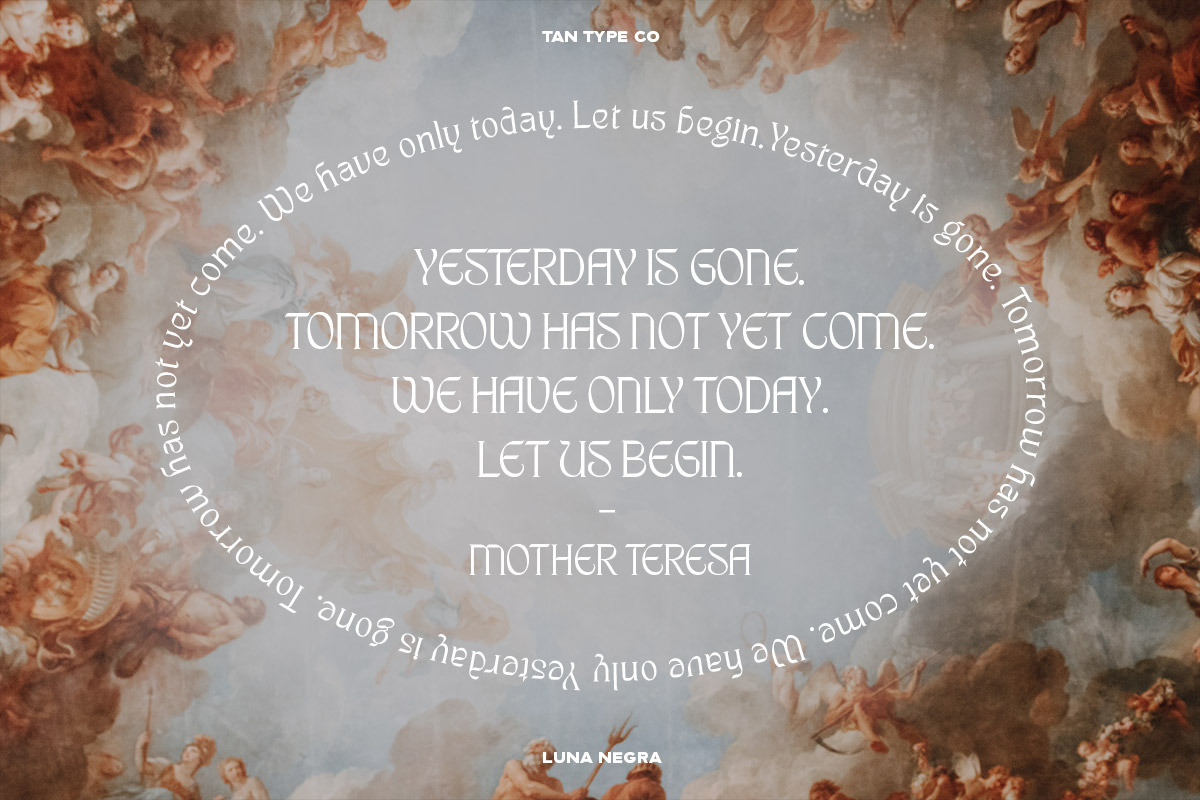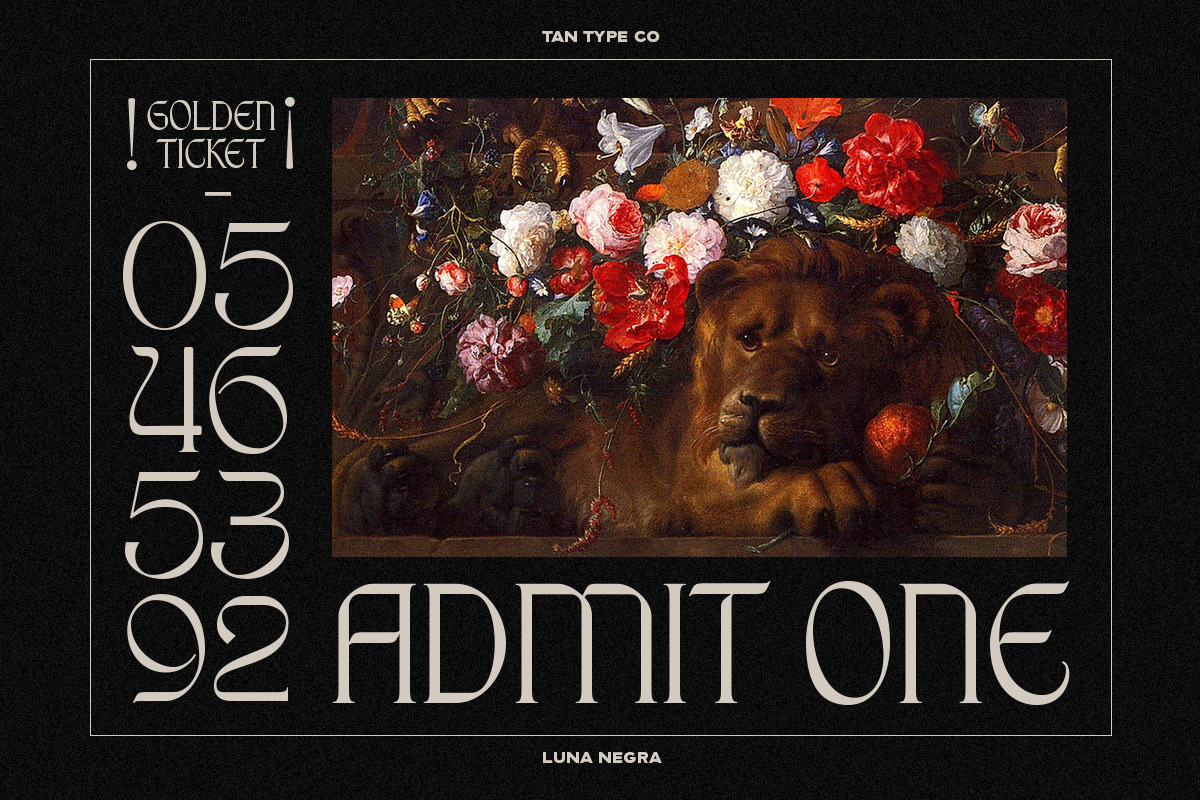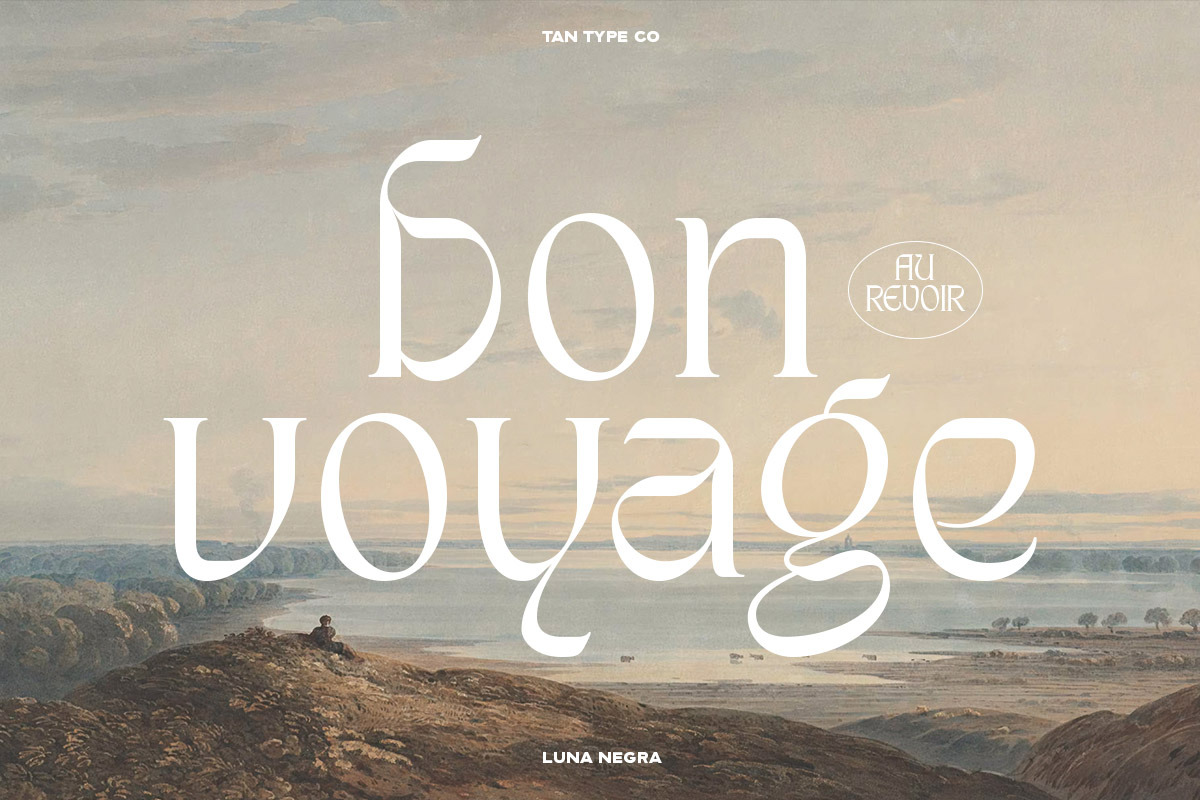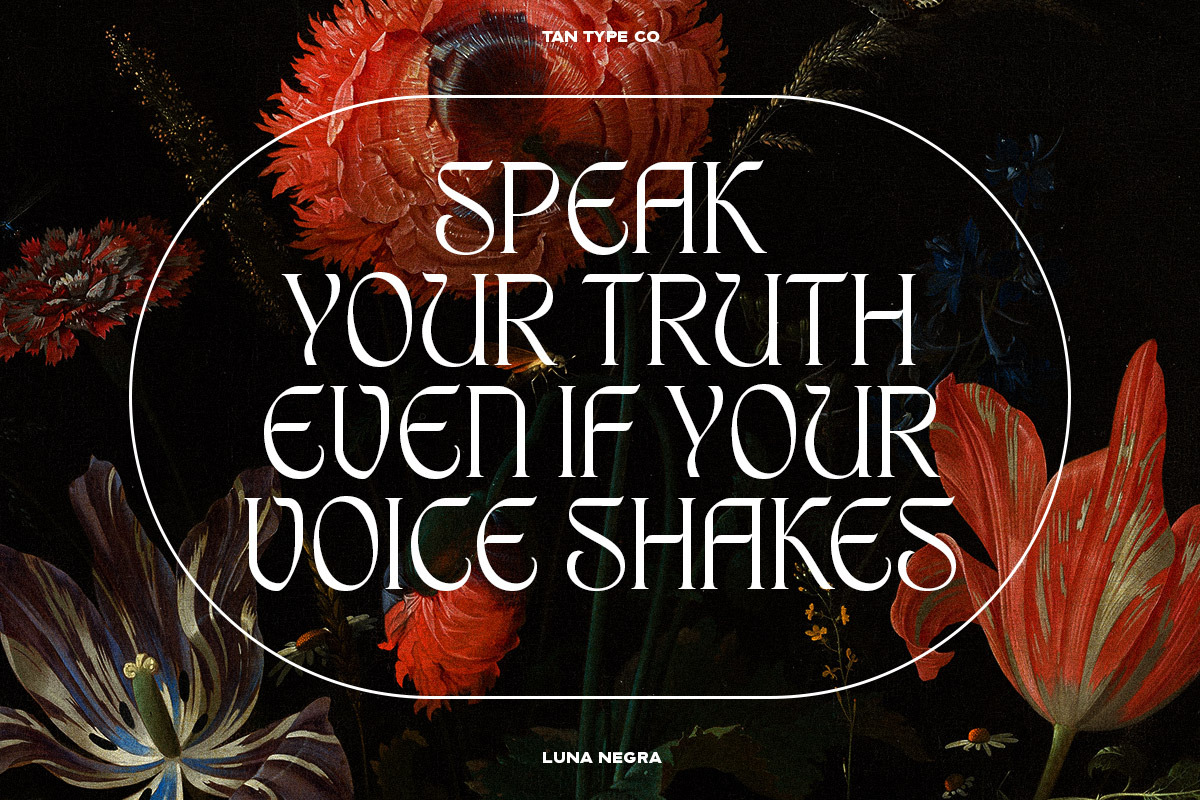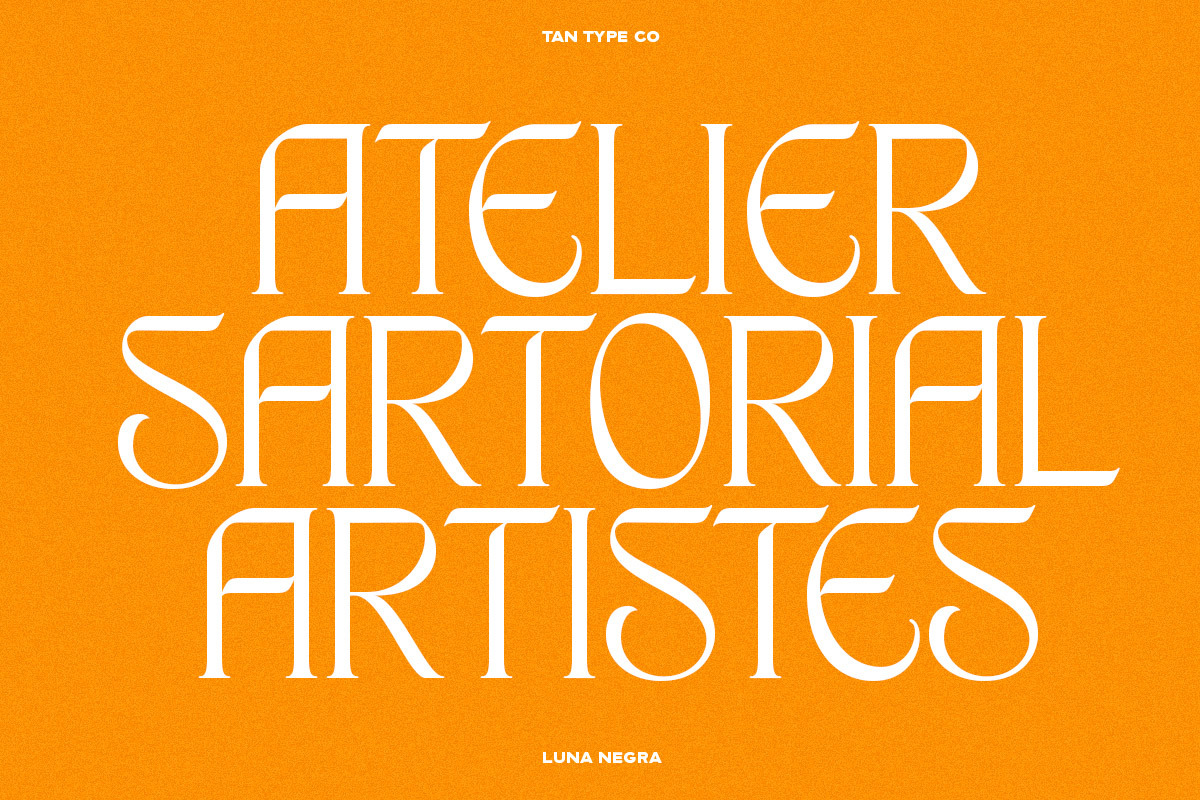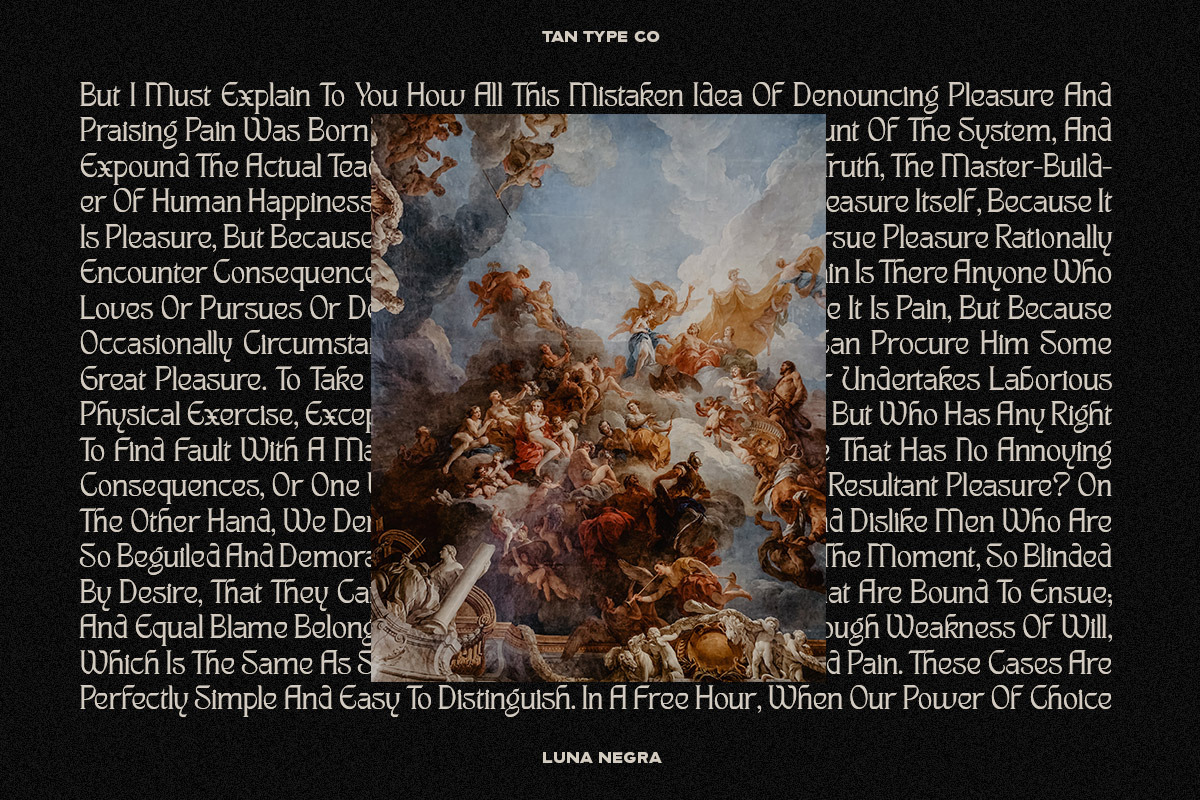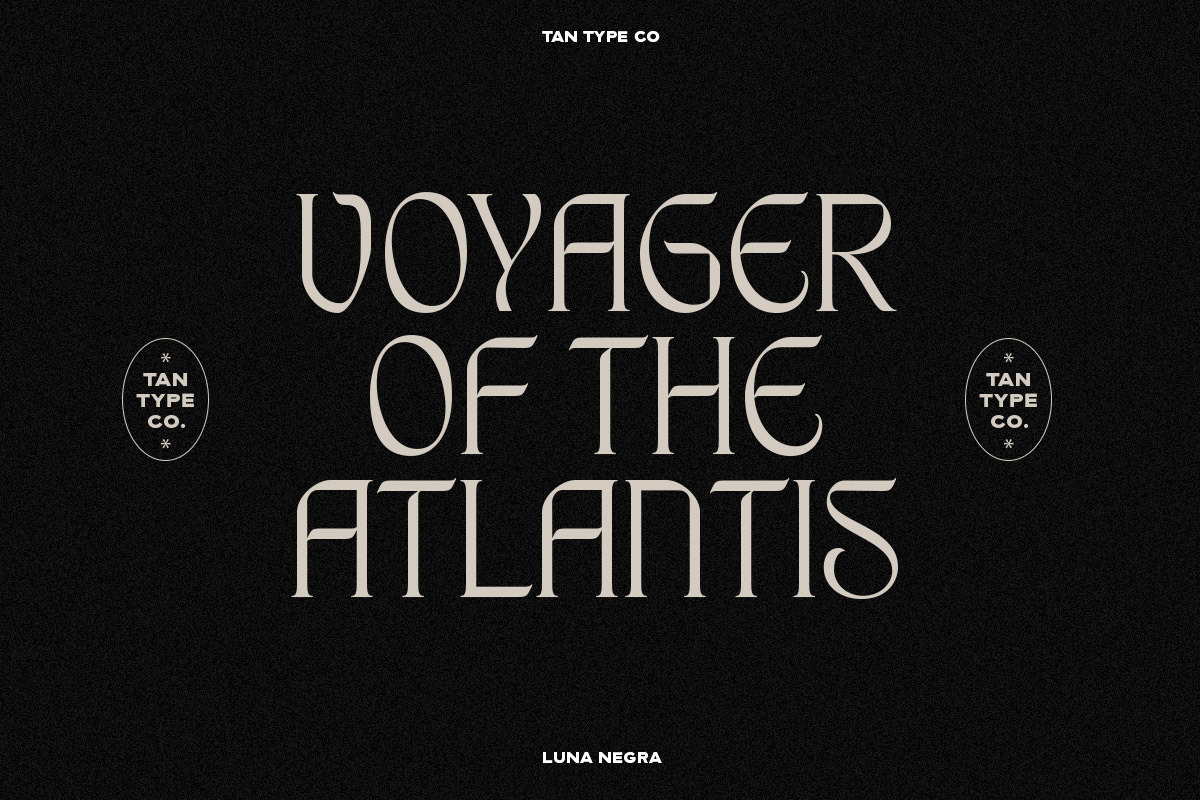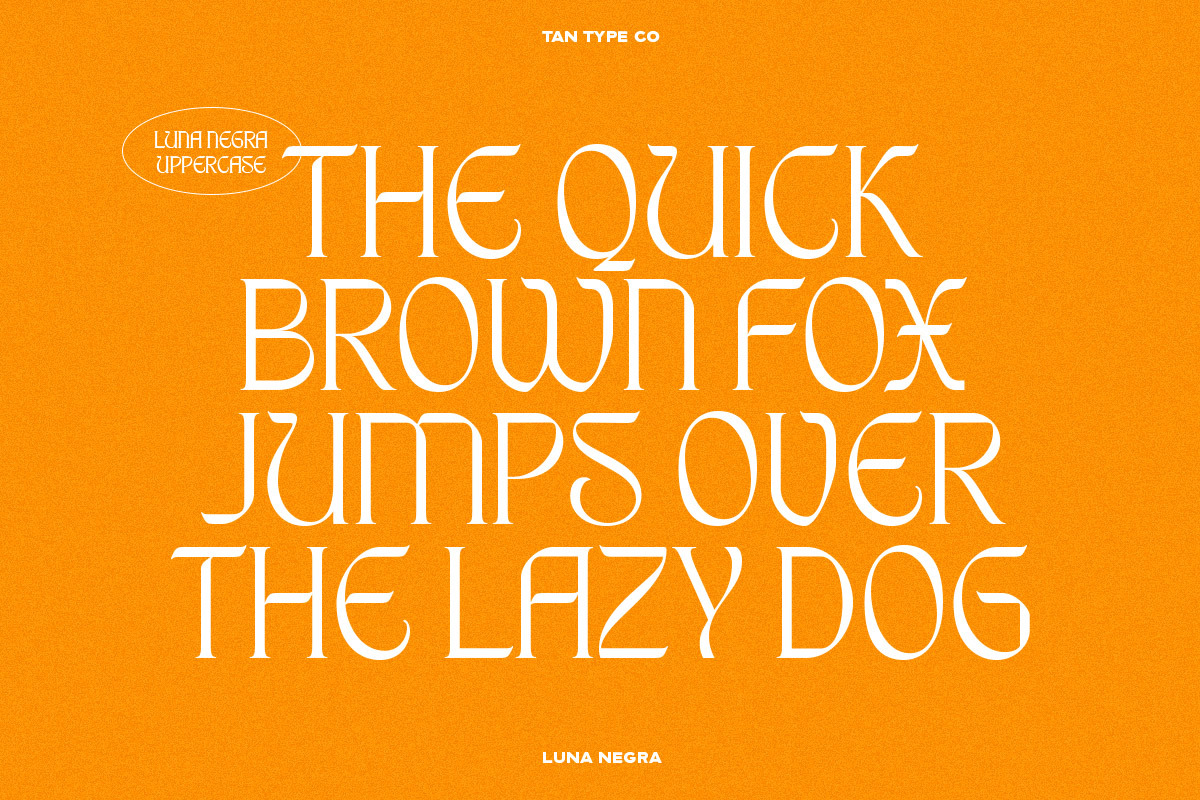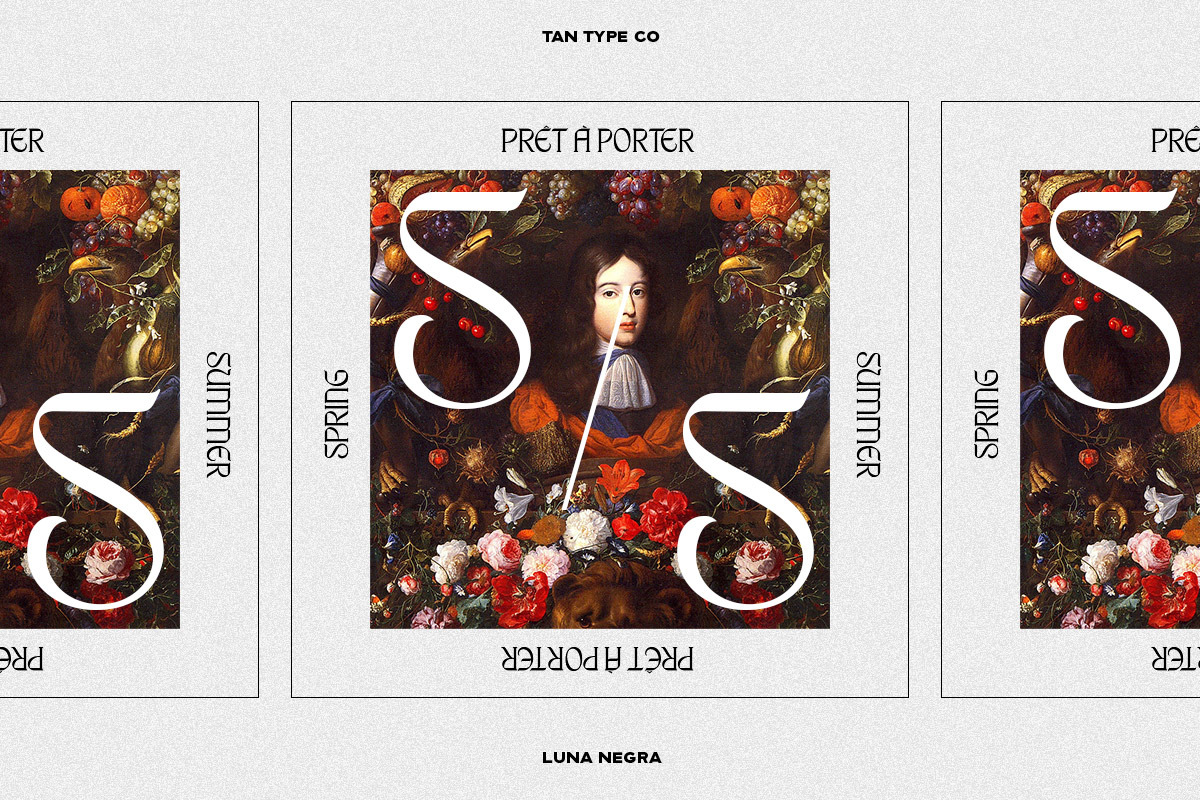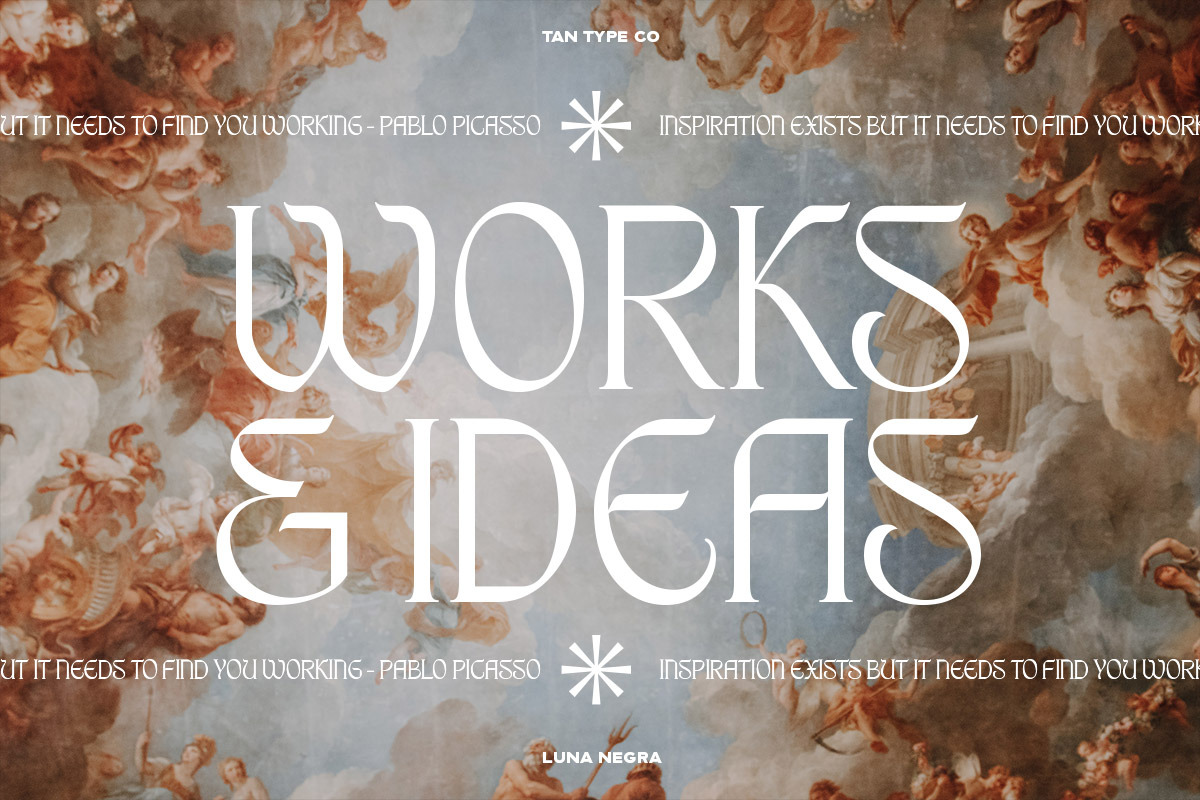
TAN - LUNA NEGRA
TAN - LUNA NEGRA is a contemporary take on blackletter. A hybrid of blackletter and serif, it retains the elegance and style. Ready to be use in any project you have in mind!